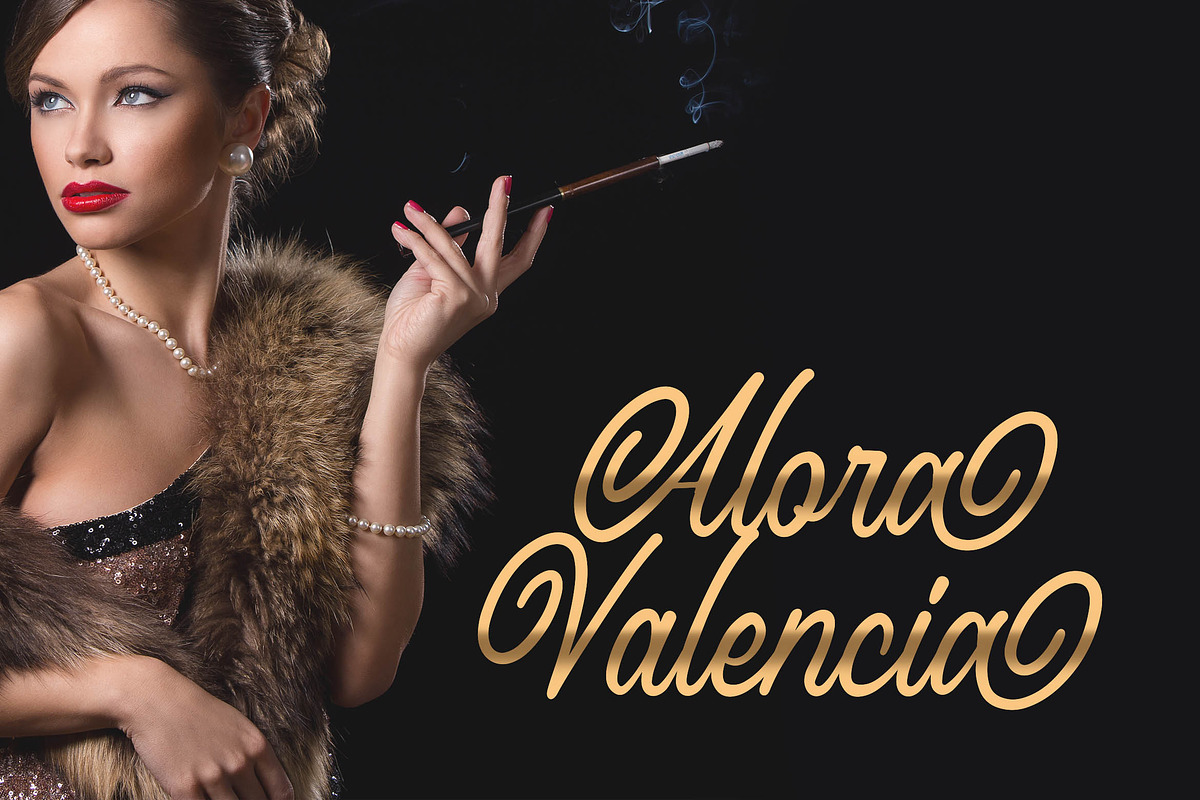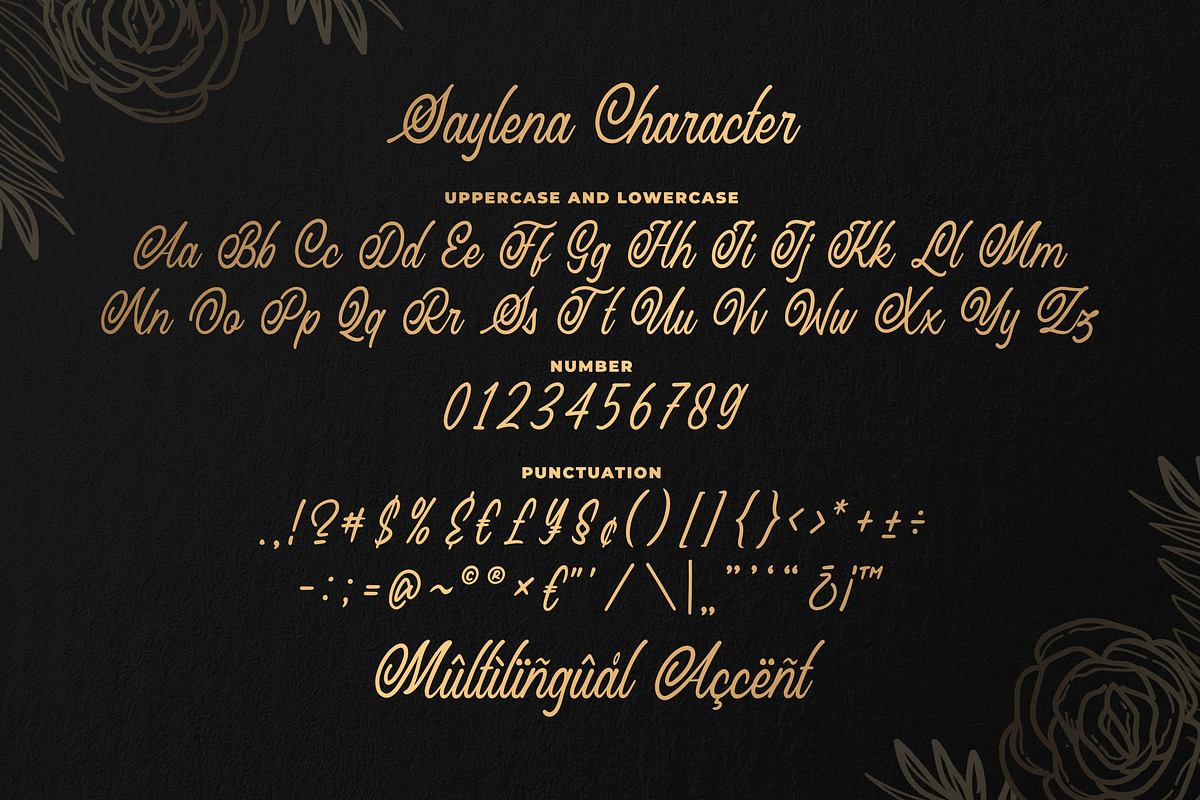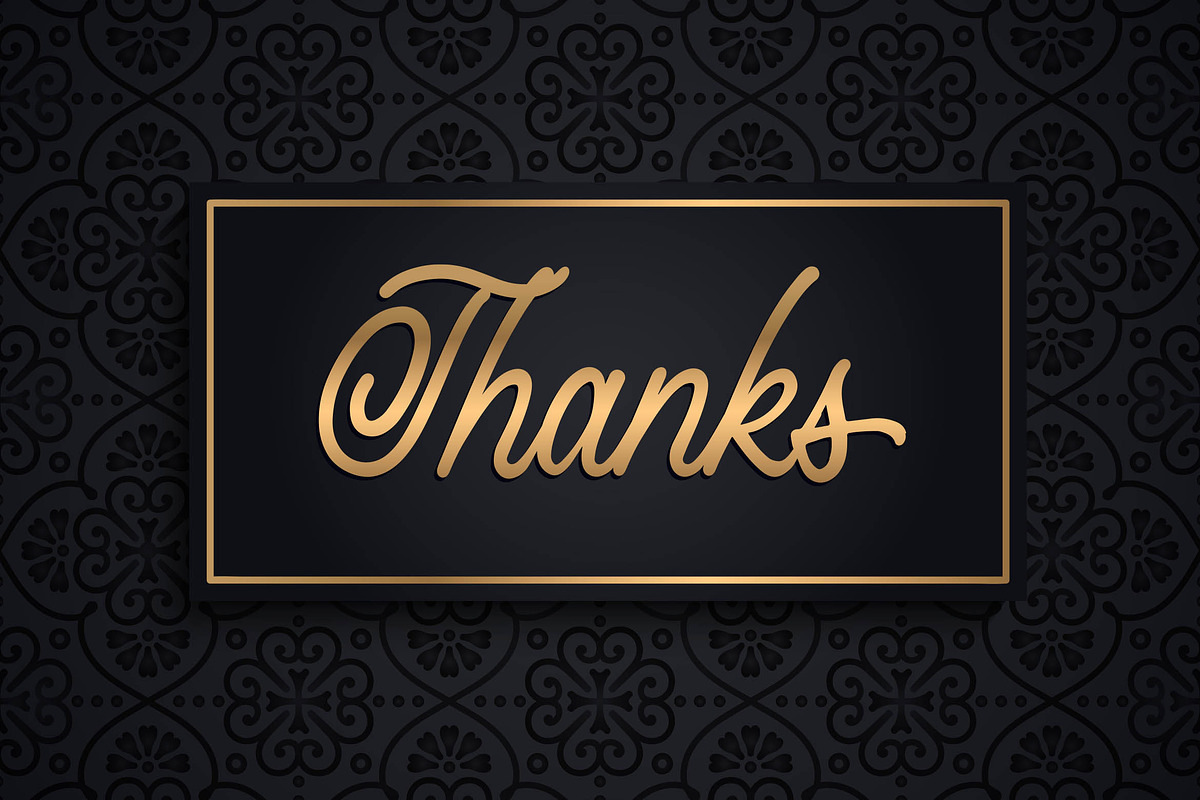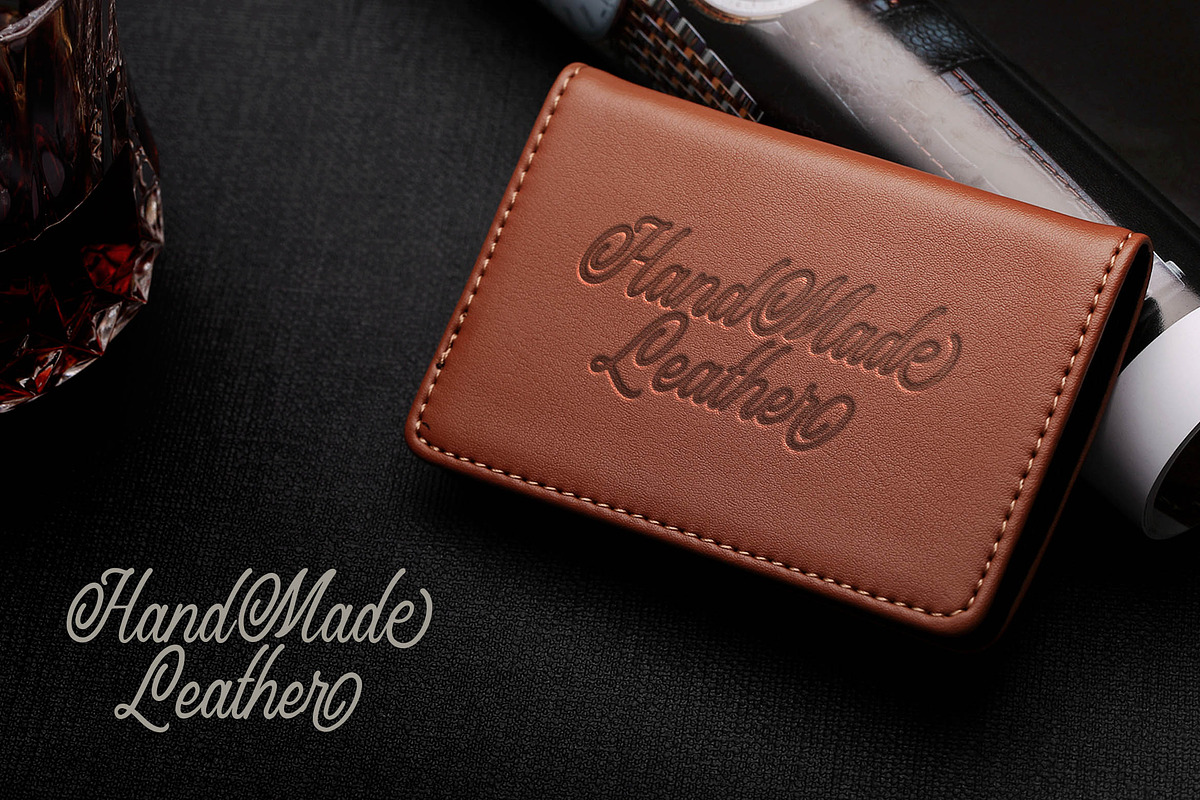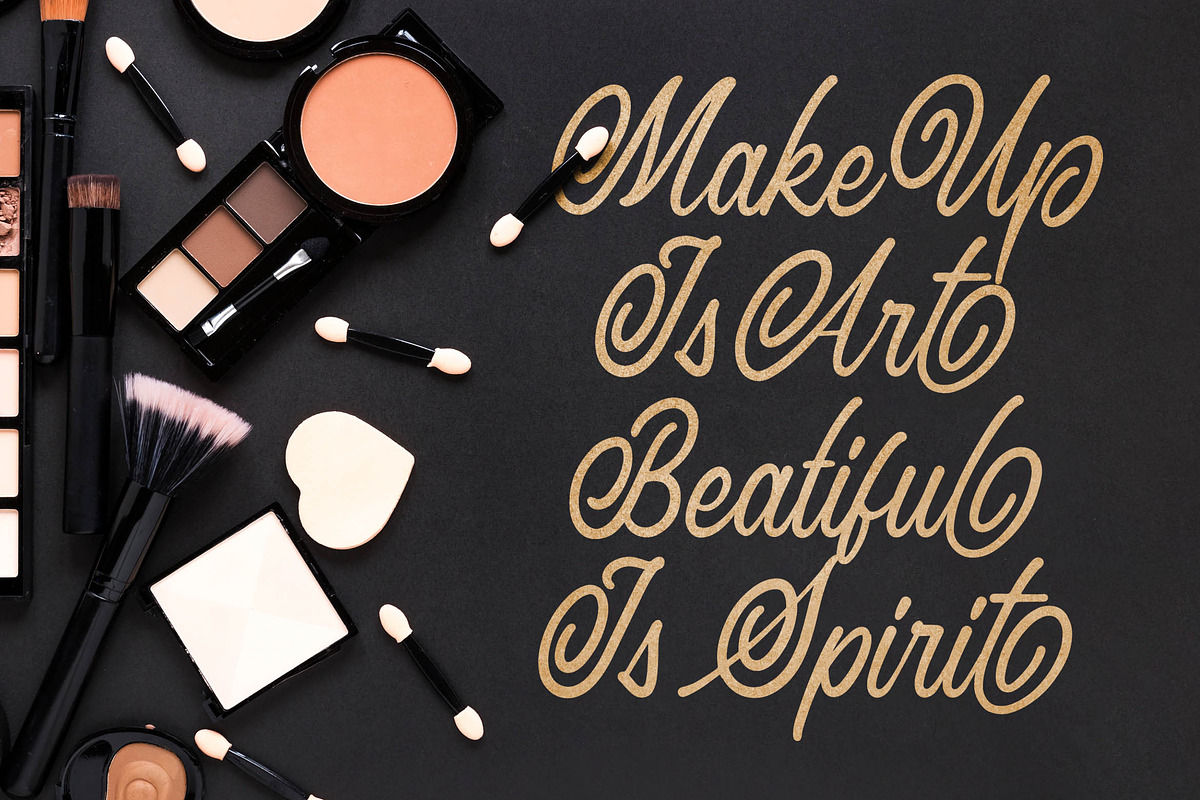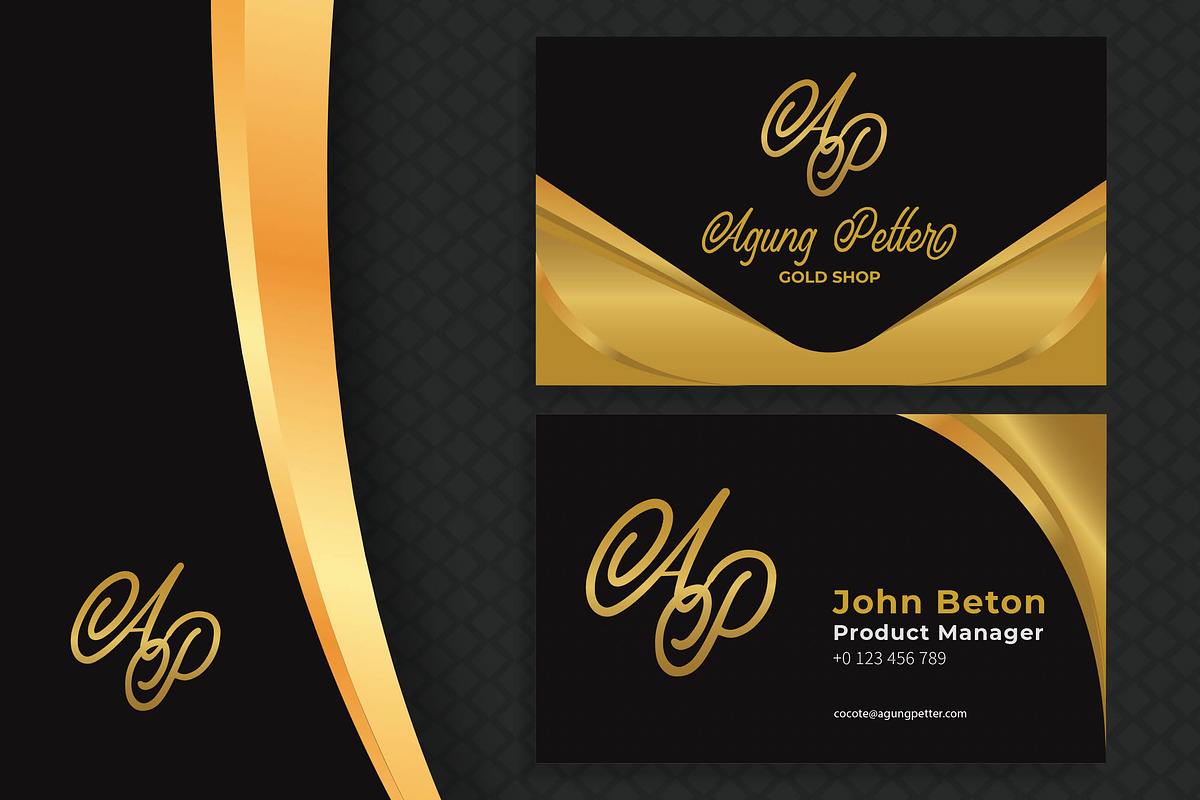
Saylena - Luxury Script Font
Introducing of our new product the name is Saylena Luxury Script Font. Saylena inspired by Luxury script style this font is a fun theme very good for signature, poster, fashion, wedding, branding etc
MULTILINGUAL ACCENT : ŽžŠŒšŸÀÁÂÃÄÅÆÇÈÉÊËÌÍÎÏÐŁÑÒÓÔÕÖØÙÚÛÜÝßàáâãäåæçèéêëìíîïłñòóôõöøùúûüýÿ
Saylena - Luxury Script Font by Blankids Studio fits naturally into Branding, posters, packaging, typography.